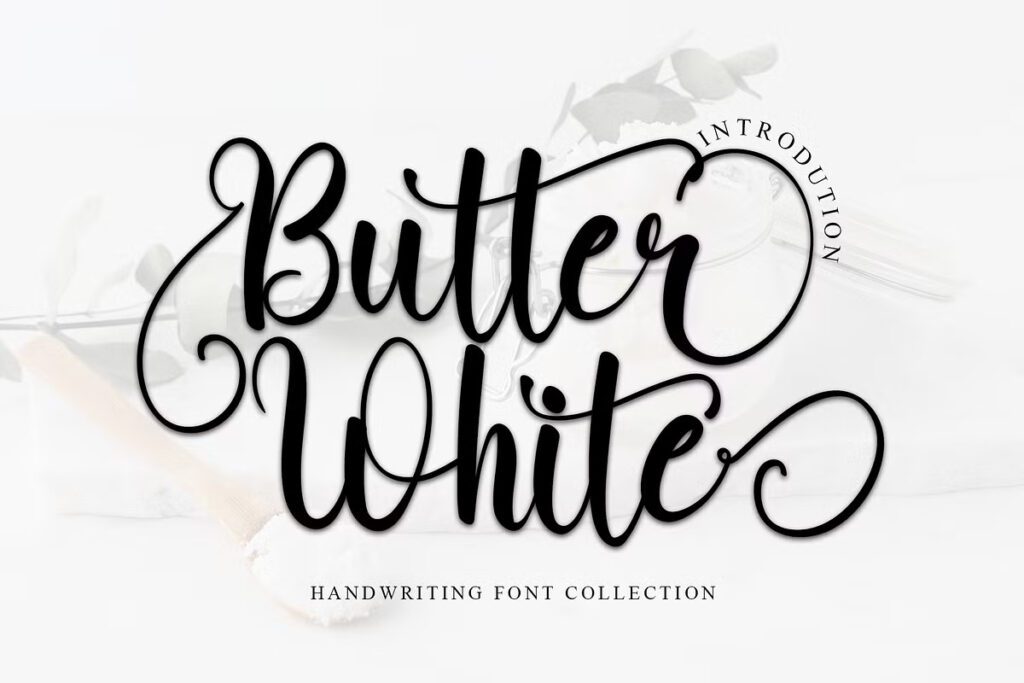
Butter White – A Modern Script Font for Creative Projects
Introducing Butter White, a professional script font designed to add a touch of elegance and creativity to your projects. With its sleek, modern style and beautiful strokes, Butter White transforms both formal and informal designs into luxurious, eye-catching creations.
Why Choose Butter White?
1. Perfect for Various Creative Ideas:Whether you’re designing invitation cards, letterheads, or social media banners, Butter White brings a unique, professional flair to your projects. Its modern and elegant design is ideal for both branding and advertising, making it versatile for any project that requires a creative touch.
2. Luxurious and Elegant Appeal:With Butter White, your products will exude elegance and style. Its flowing, creative strokes make every project look polished and refined, ensuring that your work stands out, whether it’s on leather products, website logos, or product packaging.
3. Comprehensive Set of Features:Butter White comes with upper and lowercase letters, numbers, punctuation marks, and ligatures. All lowercase letters include both start and end forms, giving your designs a more realistic and handwritten feel. It also supports PUA encoding, meaning you can access all special characters without additional software.
Perfect for use in brochures, advertisements, product packaging, and more.
Elevate Your Designs with Butter White
Add a touch of luxury and creativity to your work with Butter White. Whether you’re designing for personal projects or professional branding, this font guarantees a sleek, modern look with creative flair.